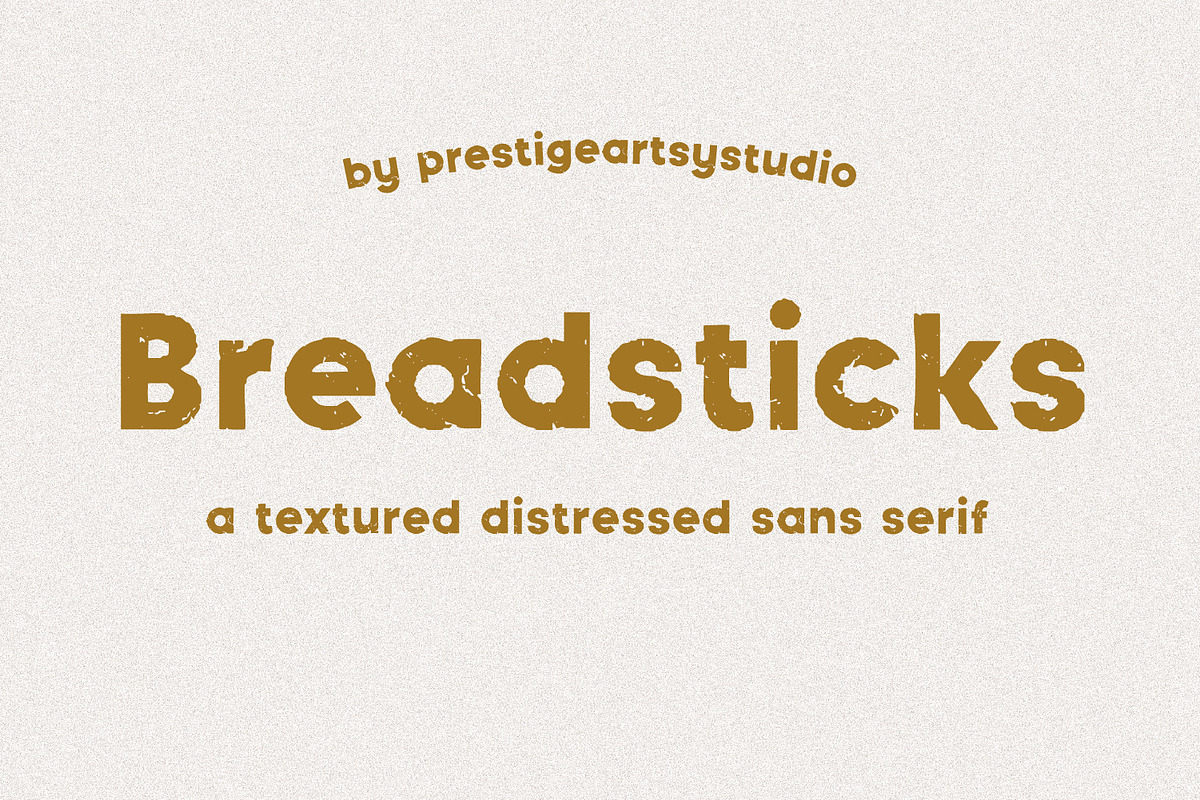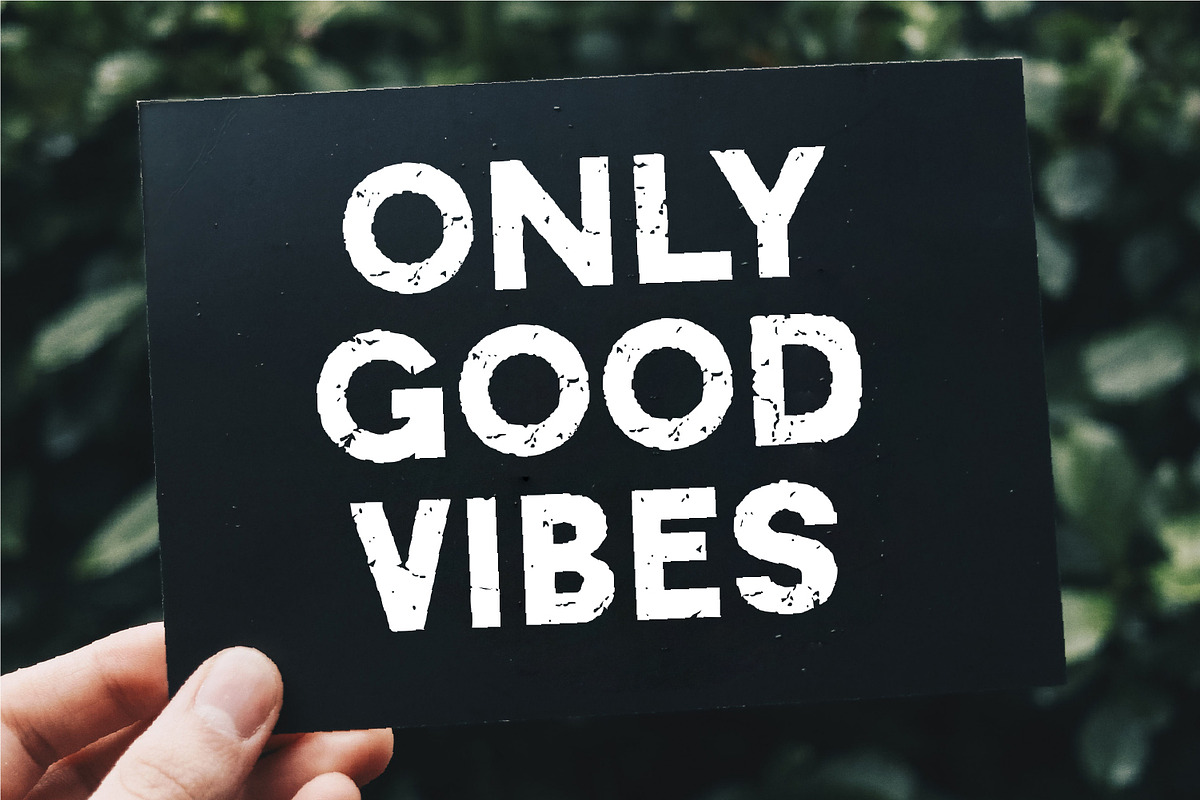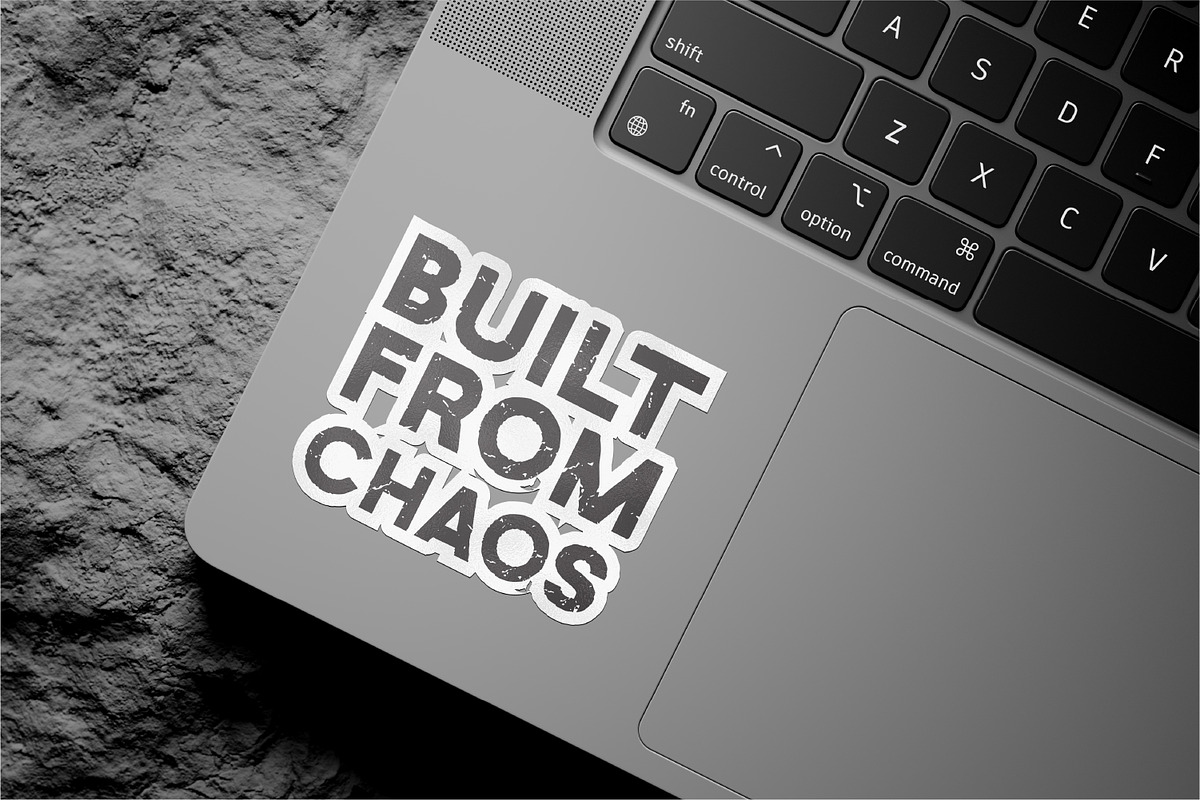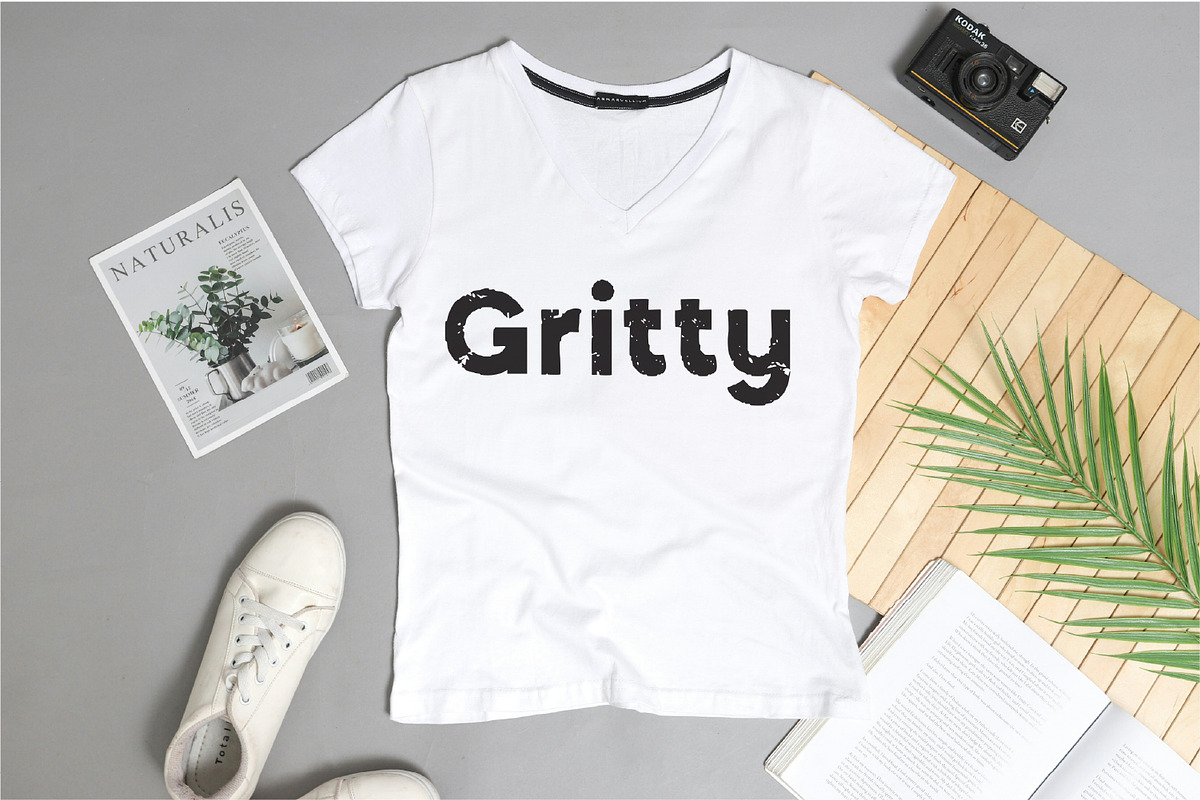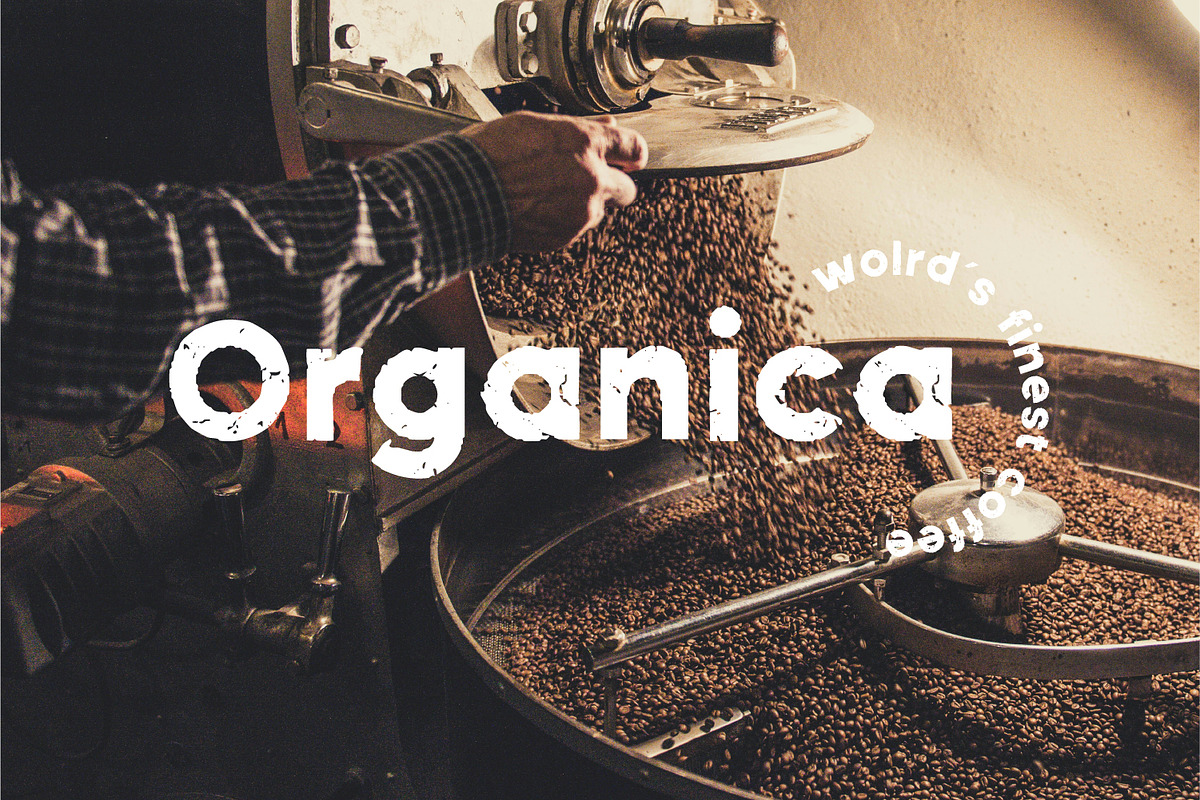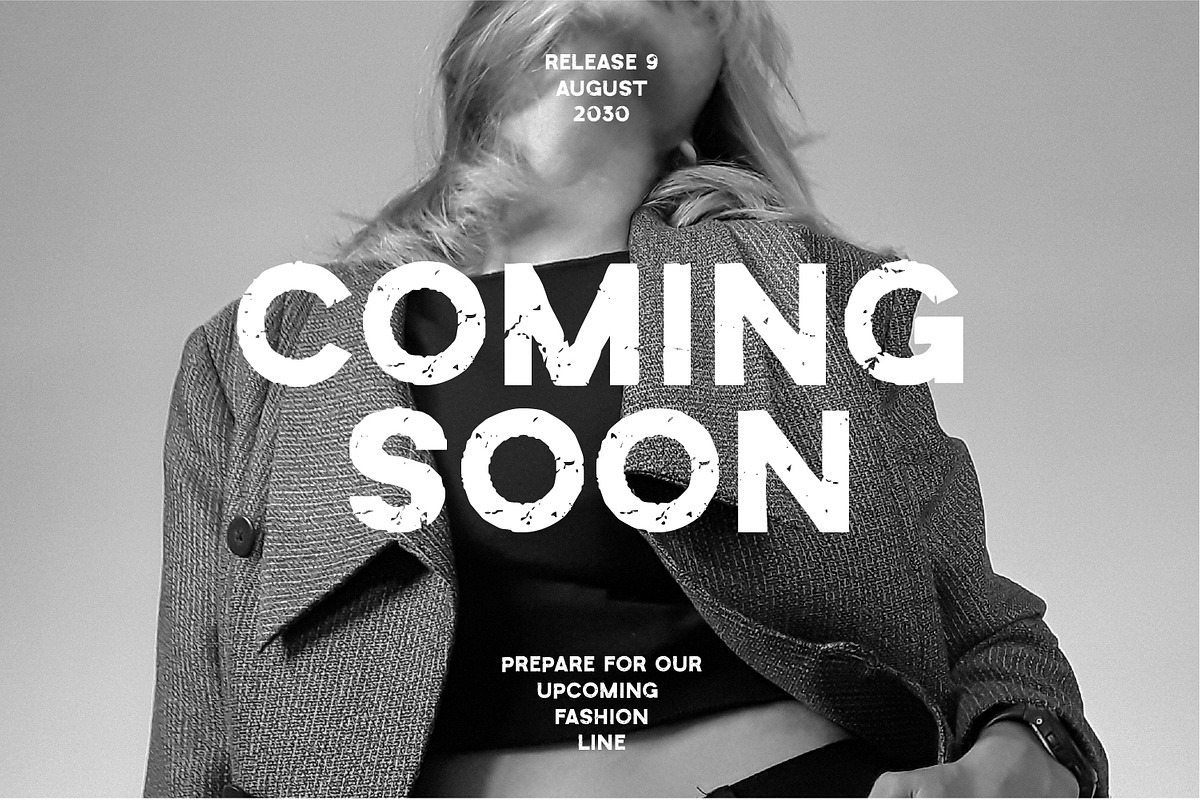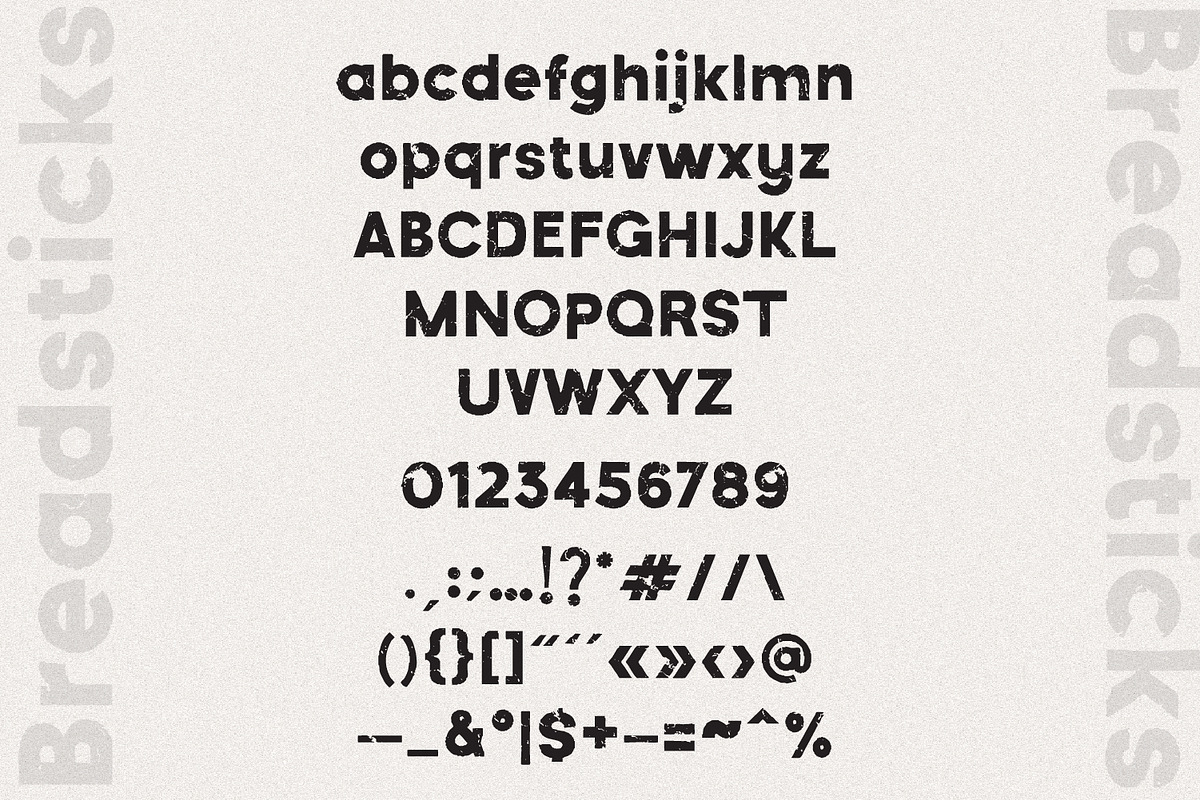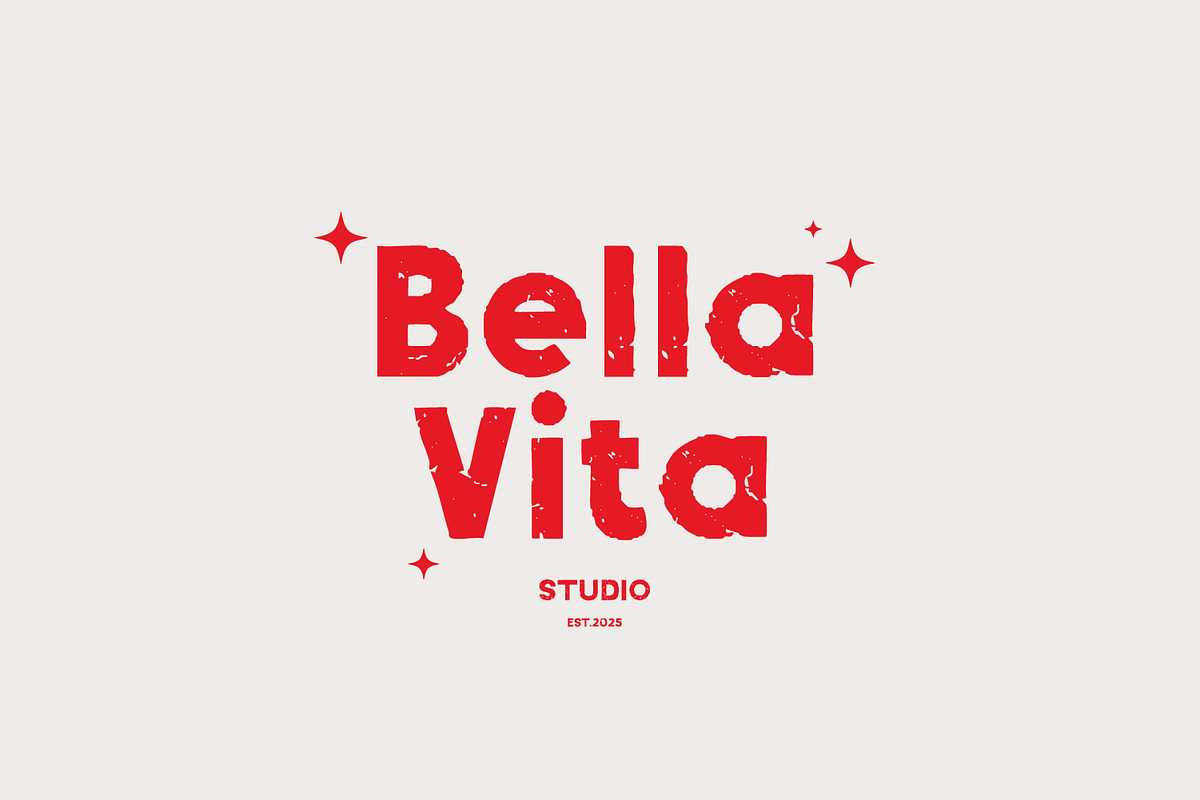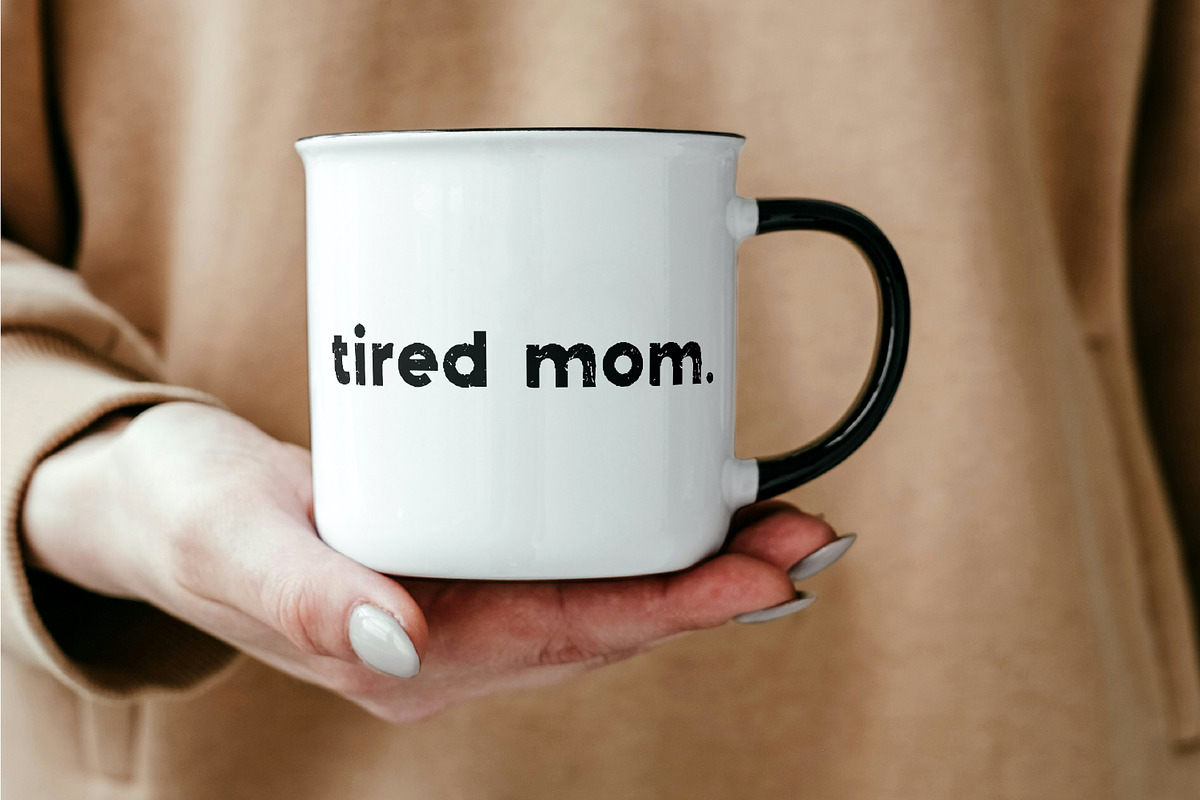
Breadsticks A Distressed Sans
Meet Breadsticks — your new favorite bold grunge font.
Breadsticks is a distressed sans serif typeface with a strong, weathered texture and a handcrafted industrial vibe. Its bold personality and rough edges make it perfect for designers who want to add grit, attitude, and authenticity to their projects.
With uppercase and lowercase letters, Breadsticks brings a versatile and dynamic look — ideal for logos, posters, apparel, packaging, and vintage-inspired branding. Each letter has a unique, imperfect texture that feels like ink-stamped typography, giving your designs a truly handcrafted, retro look.
Whether you’re designing a band logo, coffee label, t-shirt, or urban poster, Breadsticks delivers a raw yet balanced aesthetic that stands out instantly.
- Authentic distressed texture
🖤 Perfect For:
- Vintage & retro logos
- T-shirt & merch design
- Industrial or urban branding
- Posters, flyers & signage
- Labels, packaging & stickers
- Bold editorial headlines